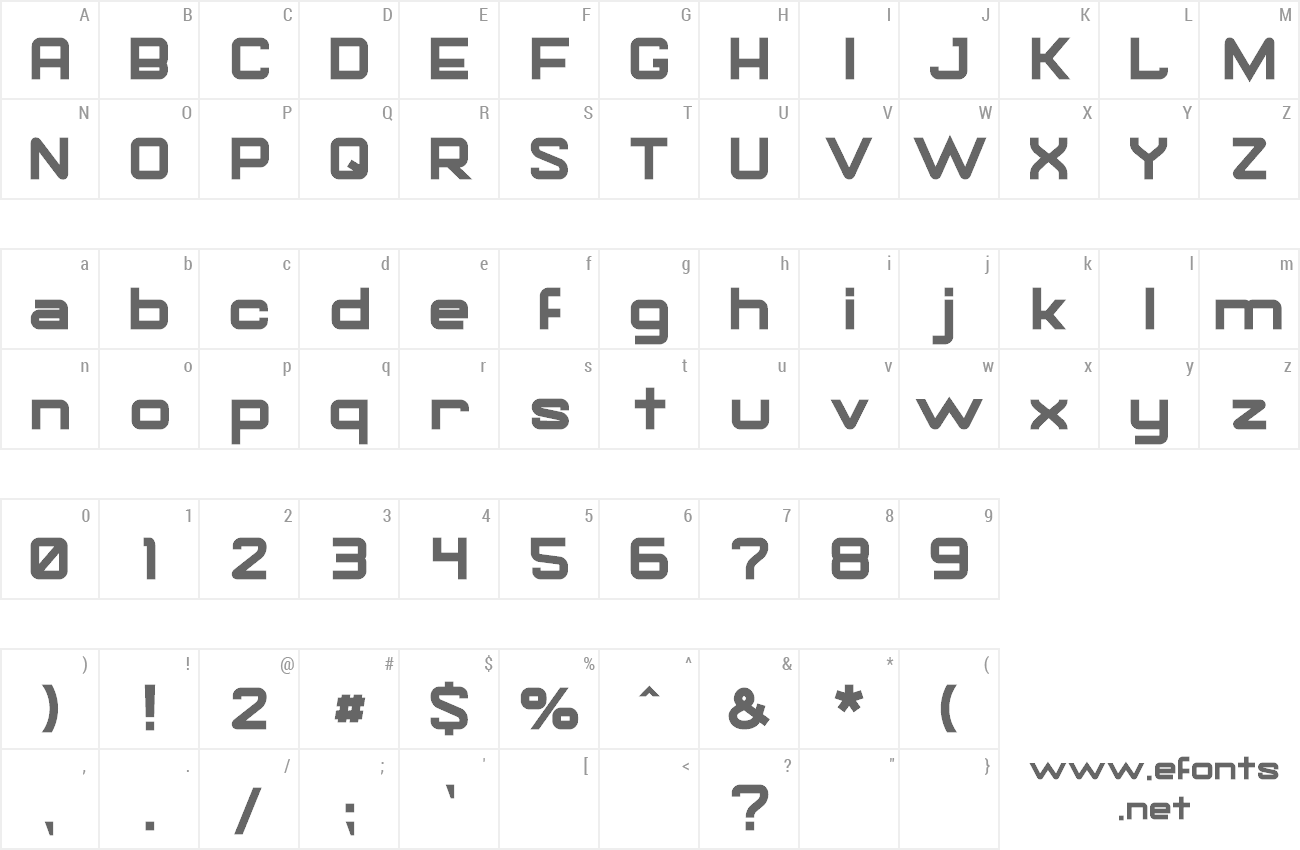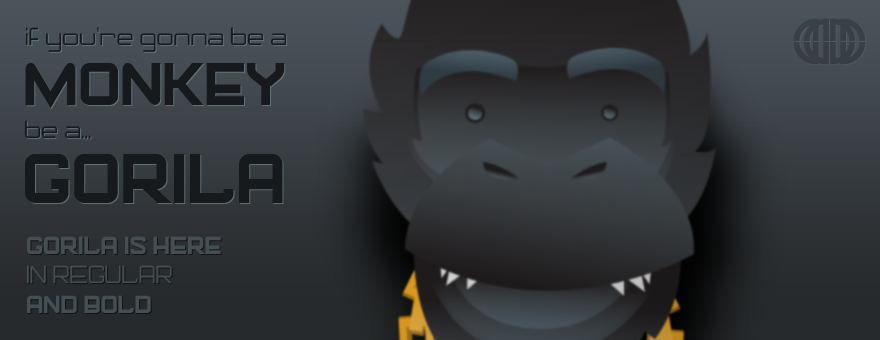
Preview and download Gorila Font. Created by MuraKnockout Media + Design in Techno Various styles with Free for personal use license.
This is a heavy, chest-beating, banana pounding beast of a font. This font is meant for ad type, logos, or just plain monkeying around. It might even give you a dose of potassium. http://michaelmuranaka.com/gorila-in-regular-and-bold/ ----------------------- For commercial licensing, please check out the licensing agreement: http://michaelmuranaka.com/font-licensing-agreement/ ----------------------- Check out my new Font Blog to stay up to see when I release new fonts! http://michaelmuranaka.com/category/fonts/ ----------------------- This is free for personal use. Please do not sell, redistribute, or claim ownership of this font. Please DO NOT download this font and redistribute it on another website! If you make use of this font, it might be cool if you either credit MuraKnockout Media+Design or Michael Muranaka, or show me how you used it! Enjoy! |